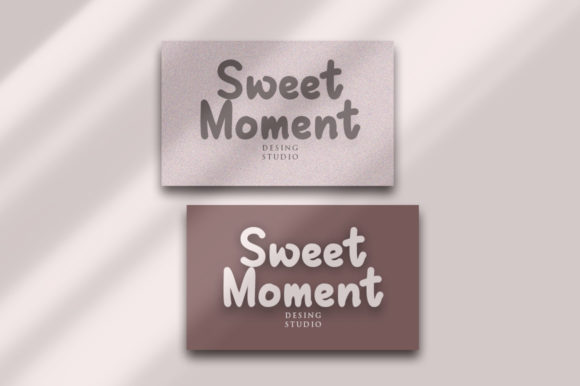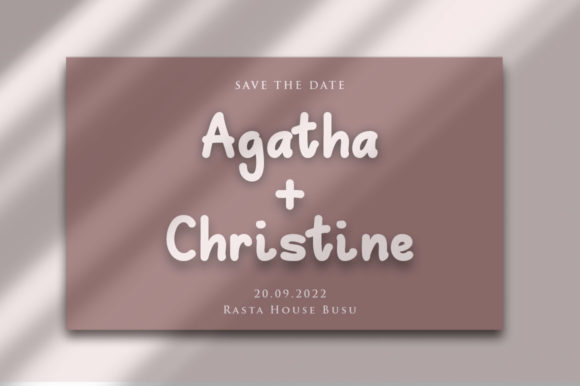
Winterhoods Font
db-ku.com - Script & Handwritten -- Winterhoods is a simple and clean handwritten font. This adaptable font will look great on a variety of design ideas. It will add a fun and friendly touch to each of your projects!